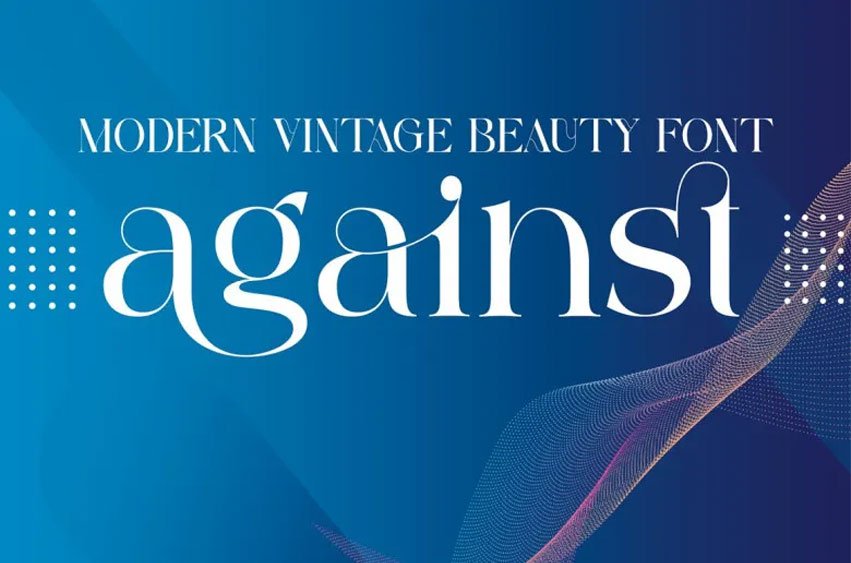
Against Font Vintage Serif font is an elegant and distinctive typeface ideal for creating logos and brands. This classy serif font offers both contemporary and nostalgic aesthetics and is perfectly suitable for logos, magazines, social media campaigns and any form of communication.